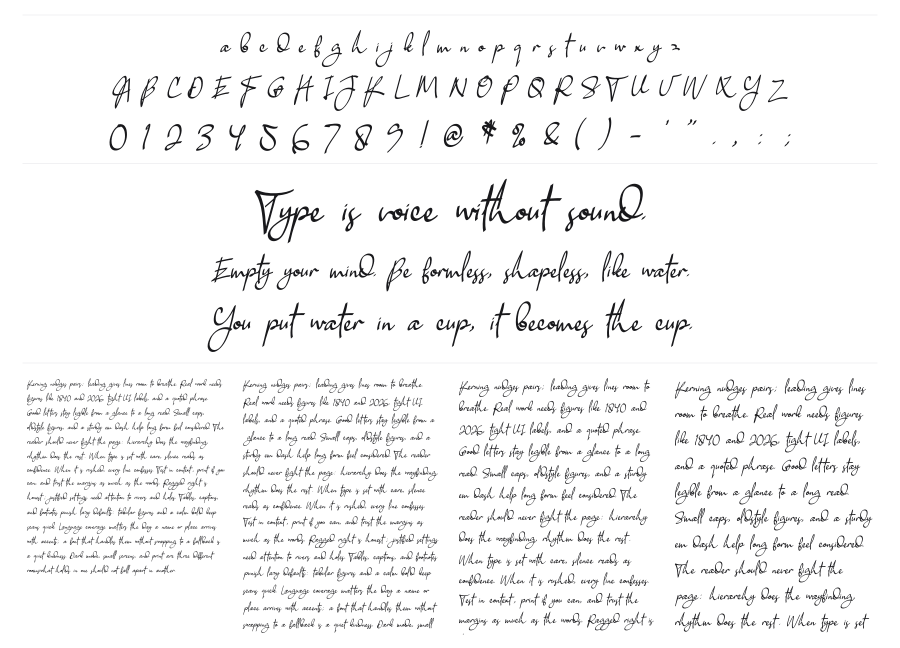
Elegature
by Emanes Dsign · Website
Elegature is a free-flowing casual script with looping ascenders and a confident, pen-in-hand energy. The variable stroke contrast and organic rhythm give it a personal, handcrafted feel without tipping into stiff calligraphy. It works well for brand logos, invitations, and any headline that needs warmth.